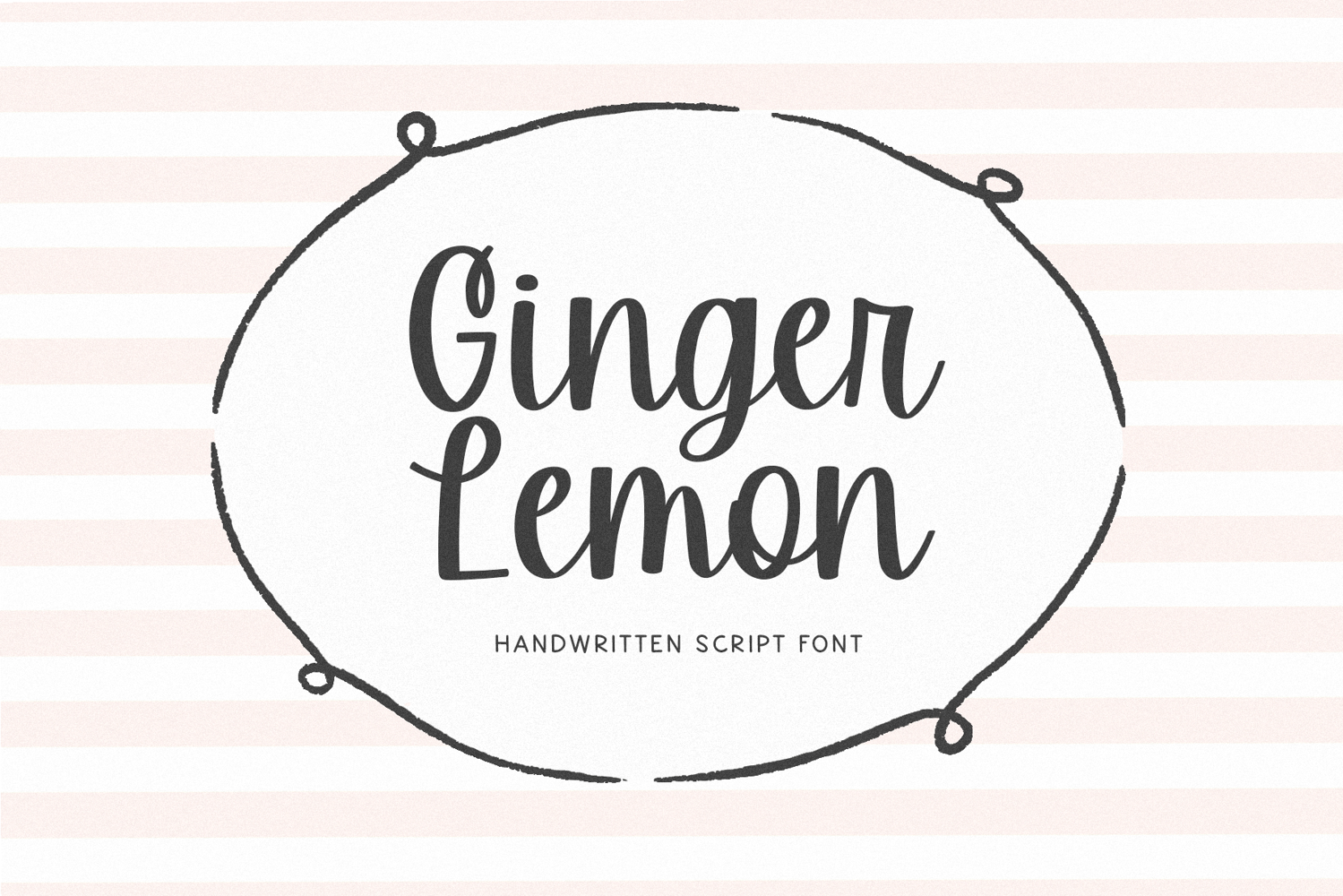
Ginger Lemon - Handwritten Script Font
Ginger Lemon
Ginger Lemon is a cute handwritten script font.
This font is perfect for farmhouse designs, decor, logos, wedding invitations, banners, canva, cricut projects, planners and more!